26 Retro Canva Fonts
Retro fonts have the charm to take us back in time. They add vintage vibes to the design that feel classic and stylish. And as a blogger, Canva is a lifesaver. I use it to create the feature images and pins for my blog. It saves so much time.
Whether you want to create a blog header, Pinterest pins, or social media graphic, Canva retro fonts can make your work stand out. With its user-friendly interface, it’s great for both beginners and experienced designers.
In this article, I will share a list of 26 retro Canva fonts that will elevate your designs to the golden era, giving them a professional look. The best part is that these fonts are free and can be used right away, but be sure to read the terms and conditions before using them.
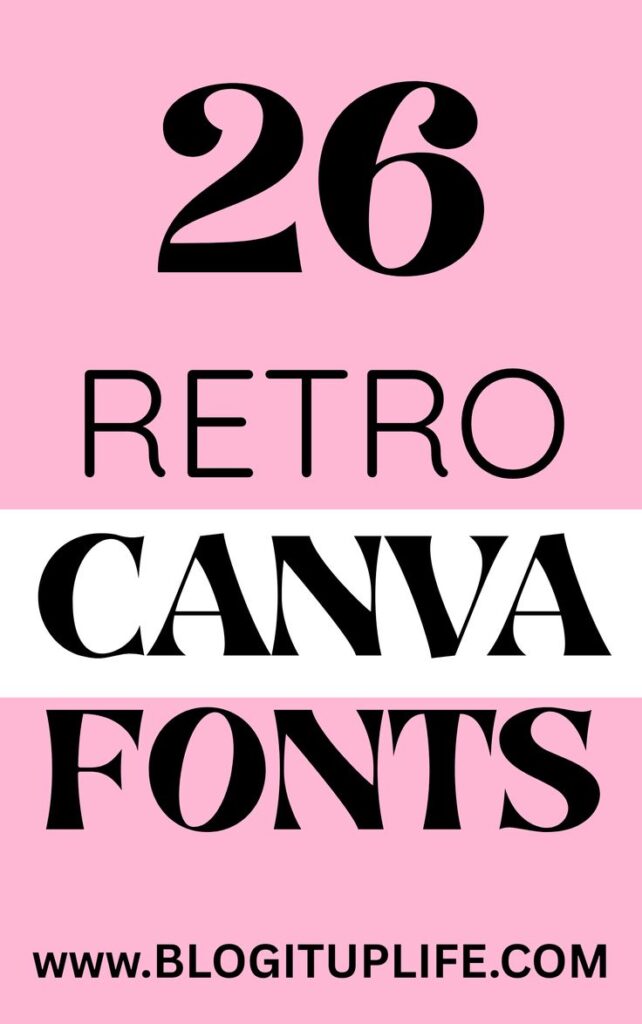
26 Retro Canva Font Ideas
1. Glory Days:
2. Barabara:
3. Bright Retro:
4. Awesome Lathusca:
5. Retro Pix:
6. Loudbag:
7. Notable:
8. Della Respira:
9. Gliker:
10. Ole Scripit:
11. Track:
12. Hobo:
13. Limelight:
14 Kabel:
15. Niconne:
16. Vintage Rotter:
17. Kompot Display:
18. Cherry Bomb One:
19. Rubik Vinyl:
20. Barbra:
21. Fb Wallw:
22. Moonlight:
23. Hangout:
24. Rundeck Texture:
25. Press Start 2p:
26. Margin:
Conclusion
This list of retro fonts is just the start of what Canva offers. If you dig deep into the platform, you will find plenty more for your design. Try to mix and match these fonts to create a unique piece for your project.